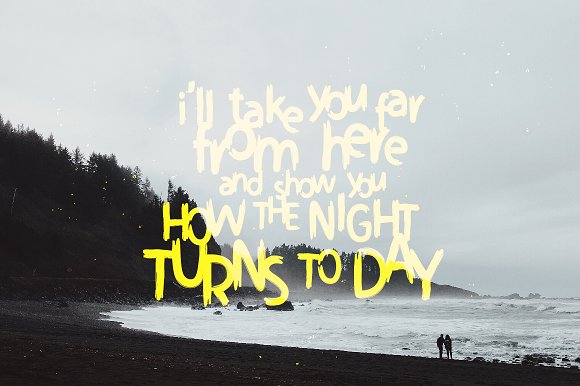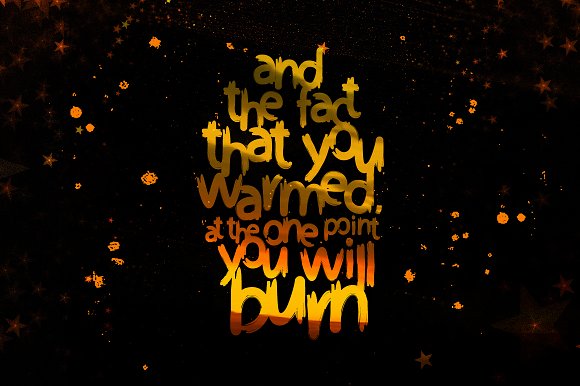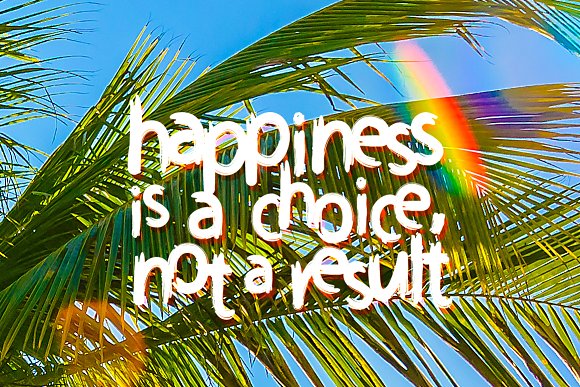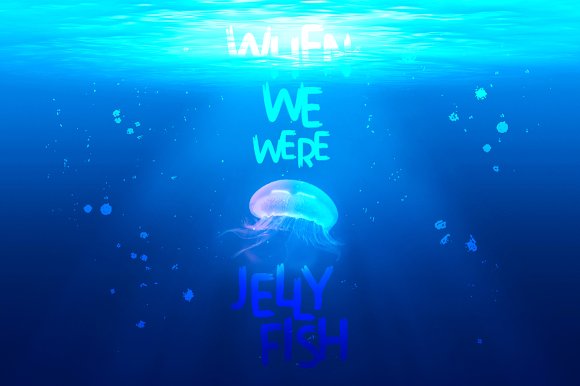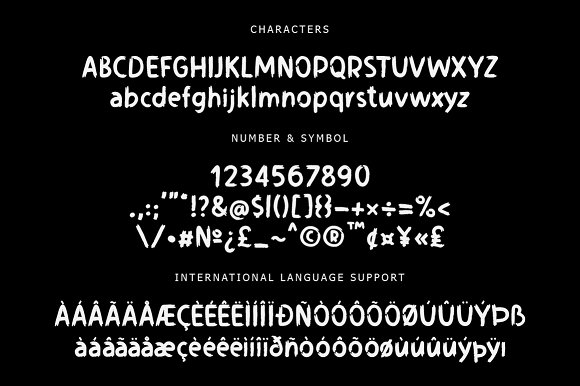
Disquise: A Beautiful Display Font
Disquise is a stunning display font, perfect for headlines, packaging, banners, and more. Its unique, handwritten brush style adds a touch of personality to any design. I was immediately drawn to its beauty and versatility. Whether you’re a designer, crafter, or creative hobbyist, Disquise is sure to become a favorite in your font collection.
• ✨ Unique and eye-catching design
• ✅ Perfect for headlines, titles, and short text
• 💫 Works well with both light and dark backgrounds
• 🎨 Great for branding, packaging, and advertising
While Disquise is an amazing font, there are a few things to keep in mind: 🤔
• ⚠️ May not be suitable for long blocks of text due to its decorative nature
• ⚠️ Some characters may not work well at very small font sizes
The Story Behind Disquise: Designer Inspiration
Disquise was created by ChekArt, a talented designer with a passion for typography. According to ChekArt, Disquise was inspired by the beauty of handwritten brush scripts and the need for unique, eye-catching fonts in the design world. With Disquise, ChekArt aimed to create a font that would add a touch of personality to any design, while still being versatile and easy to use.
Q: What is Disquise font best used for?
A: Disquise is perfect for headlines, titles, packaging, and short text. Its decorative nature makes it ideal for designs where you want to make a statement.
Q: Is Disquise a difficult font to use?
A: No, Disquise is a relatively easy font to use, especially if you’re familiar with OpenType features and glyphs. Its user-friendly design makes it accessible to designers of all levels.